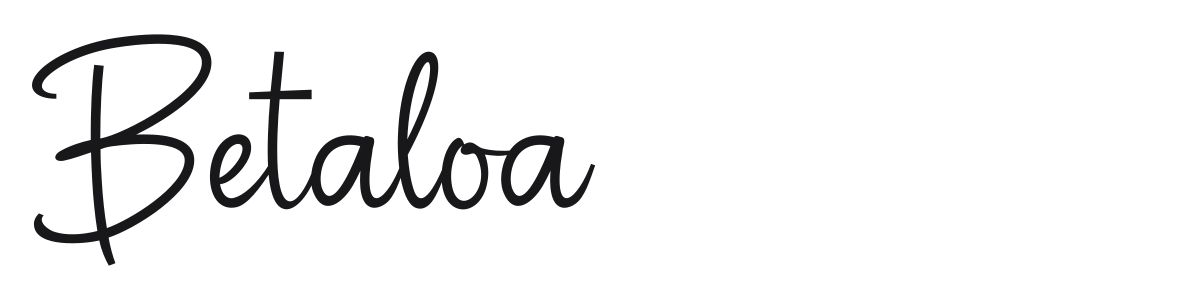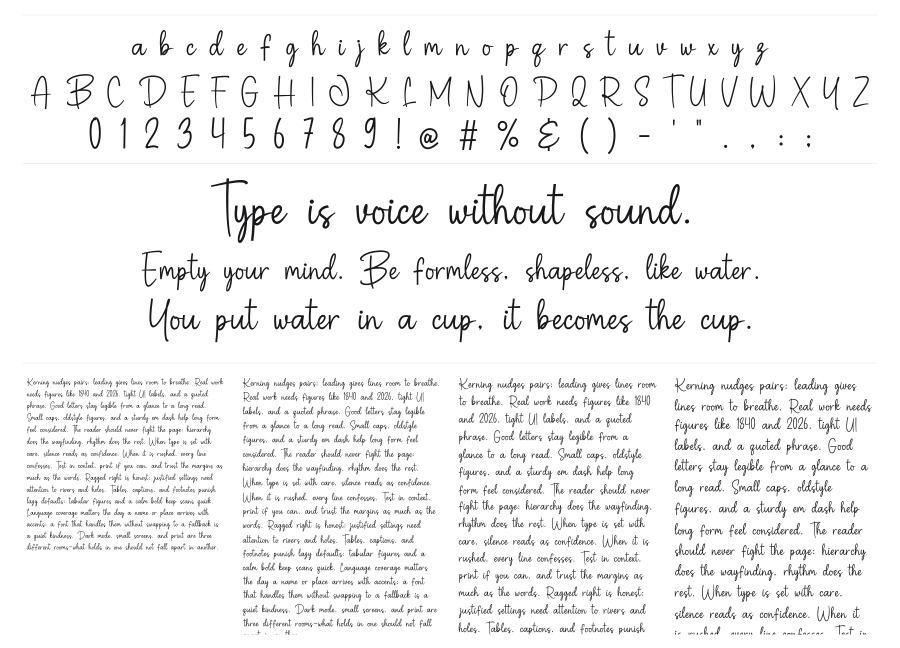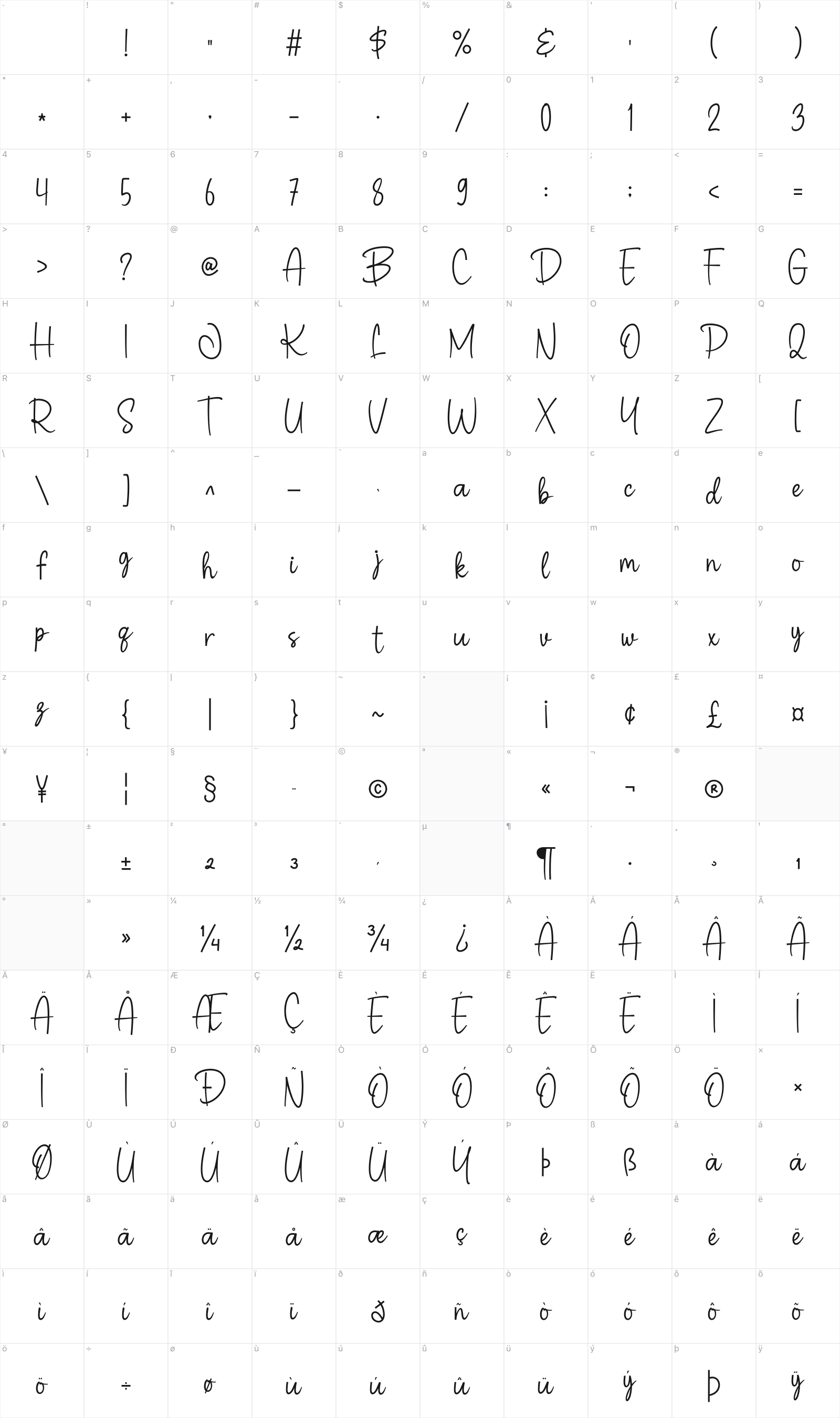
Betaloa
Betaloa is a casual connected script that feels like a confident, practiced handwrite with a ballpoint pen. The near-monoweight strokes and smooth curves keep it relaxed without feeling sloppy. It works well for product labels, social content, and anywhere a human touch matters.